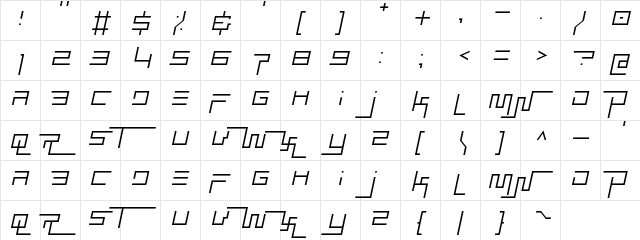
Simplicity Extend Thin Italic Font Preview
| Style | Thin Italic |
| Designer | J鳯n Garnica |
Design Context for Simplicity Extend Typeface
Simplicity Extend takes a measured approach to typography — its balanced proportions and neutral character make it a reliable workhorse for both digital and print work. The dynamic lean of this cut emphasises speed and emphasis in any layout. The delicate stroke weight brings airiness and refinement to layouts.
Pro Tip: Try Simplicity Extend for annotation and caption copy alongside an upright companion — the contrast in angle creates a dynamic but ordered typographic system.